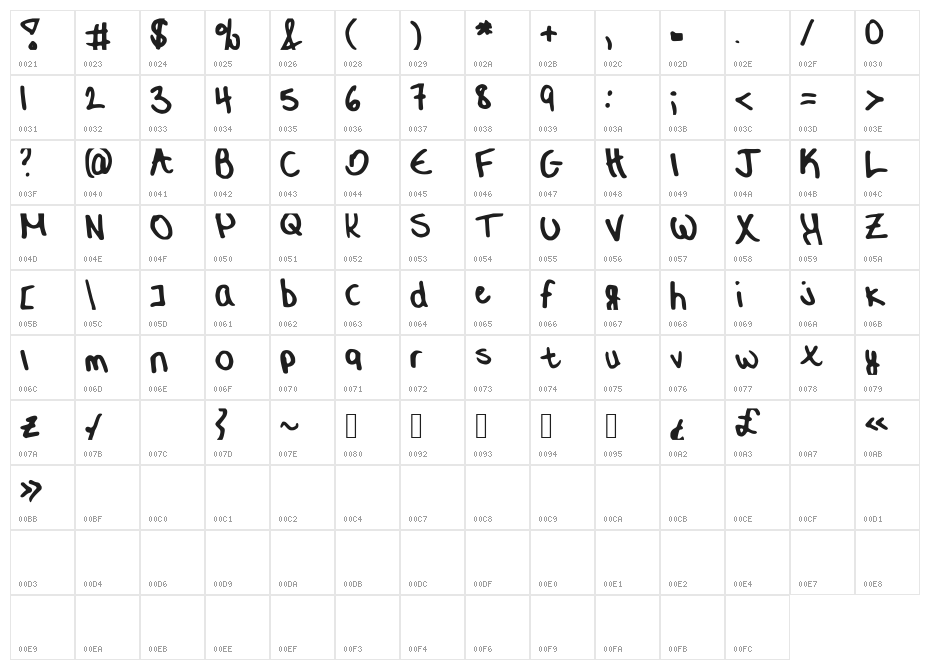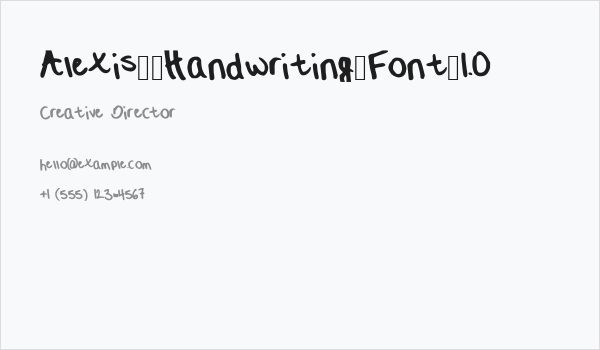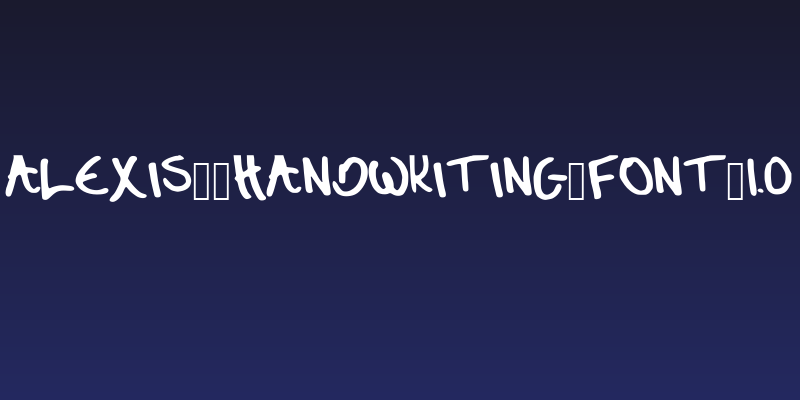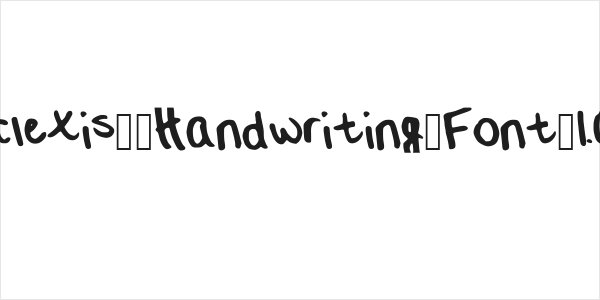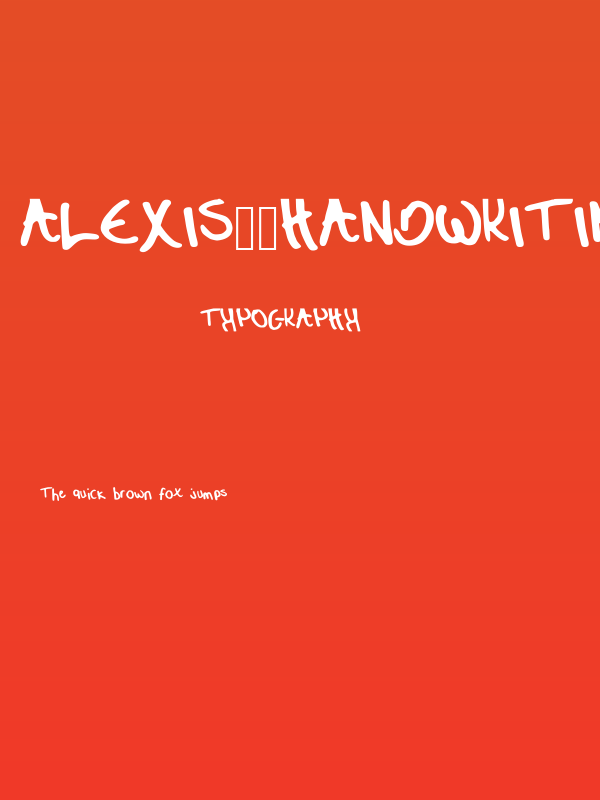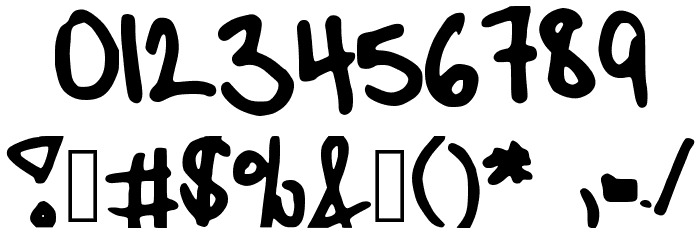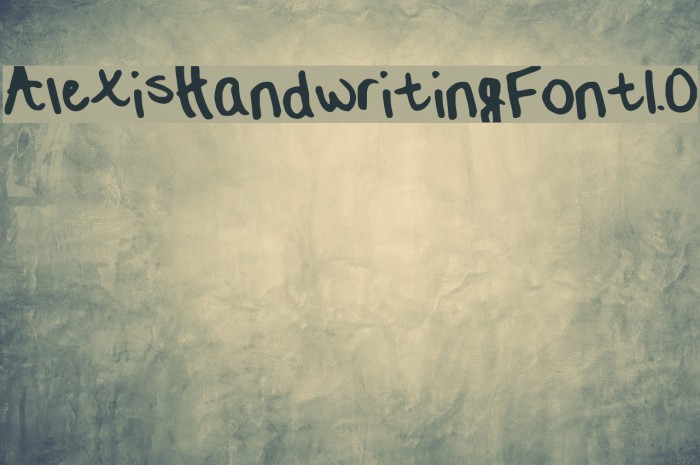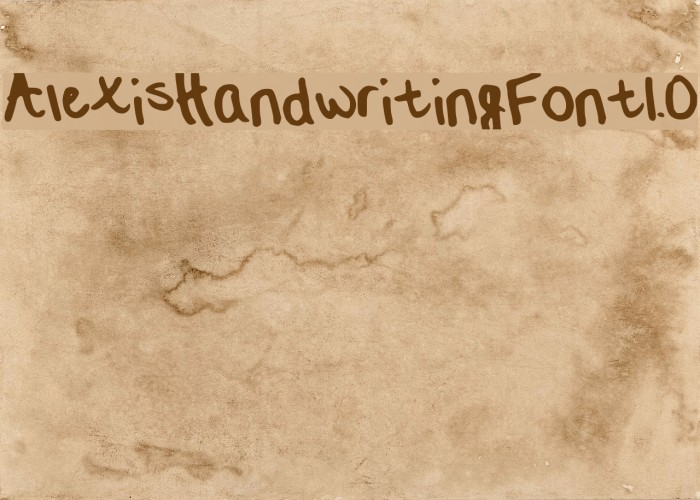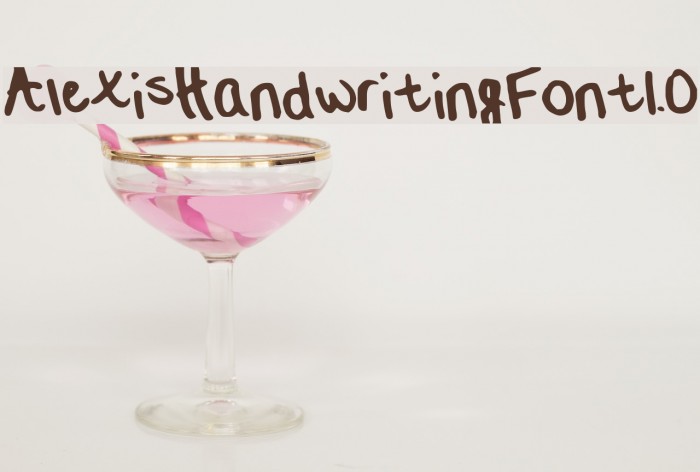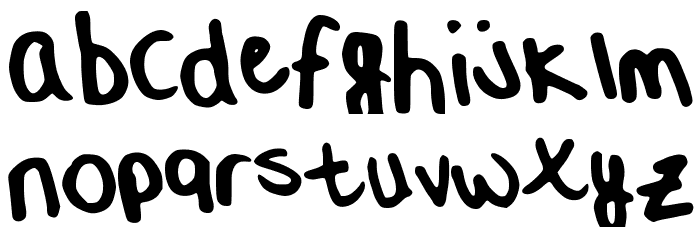
Alexis__Handwriting_Font_1.0 Font
Alexis__Handwriting_Font_1.0 Description
This font features a playful and casual handwritten style, characterized by its bold and rounded letterforms. Each character exhibits a unique, organic flow, reminiscent of natural handwriting with a slightly exaggerated thickness. The uppercase and lowercase letters maintain a consistent style, with a whimsical touch that adds personality. Numbers and special characters are crafted in the same lively manner, ensuring a cohesive look across all text. The font's informal nature makes it ideal for projects that require a personal, approachable feel.
| Proposed Projects | Ideal for greeting cards, children's books, casual branding, and social media graphics. |